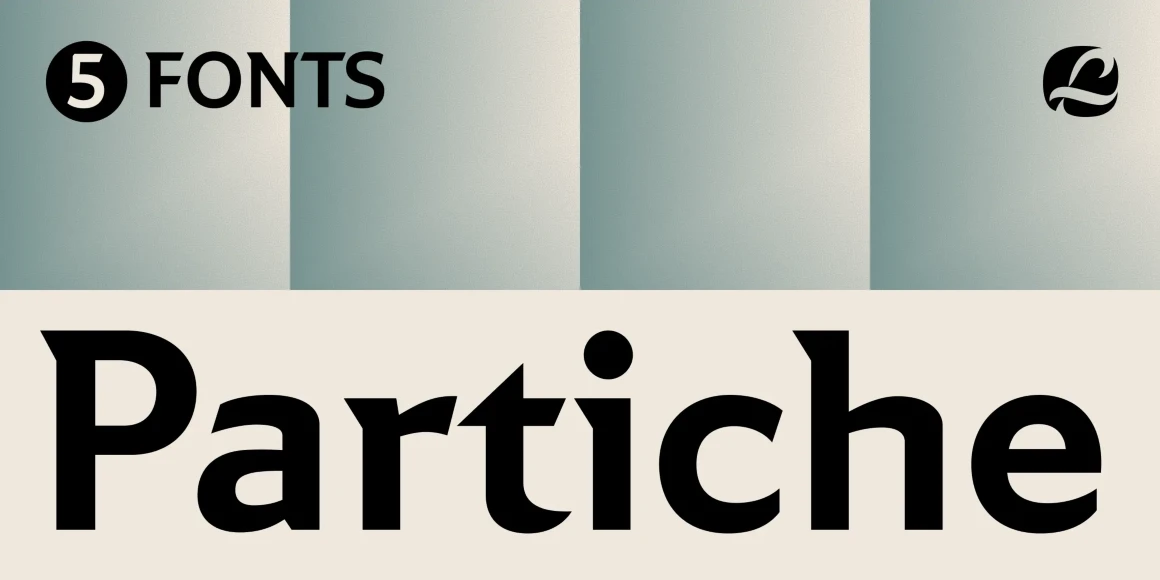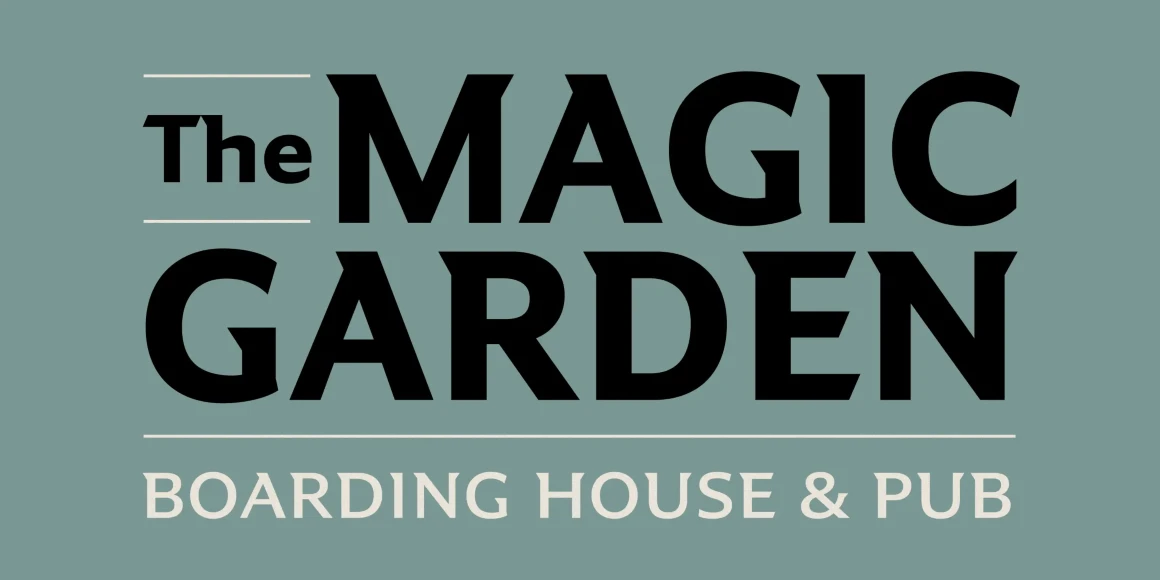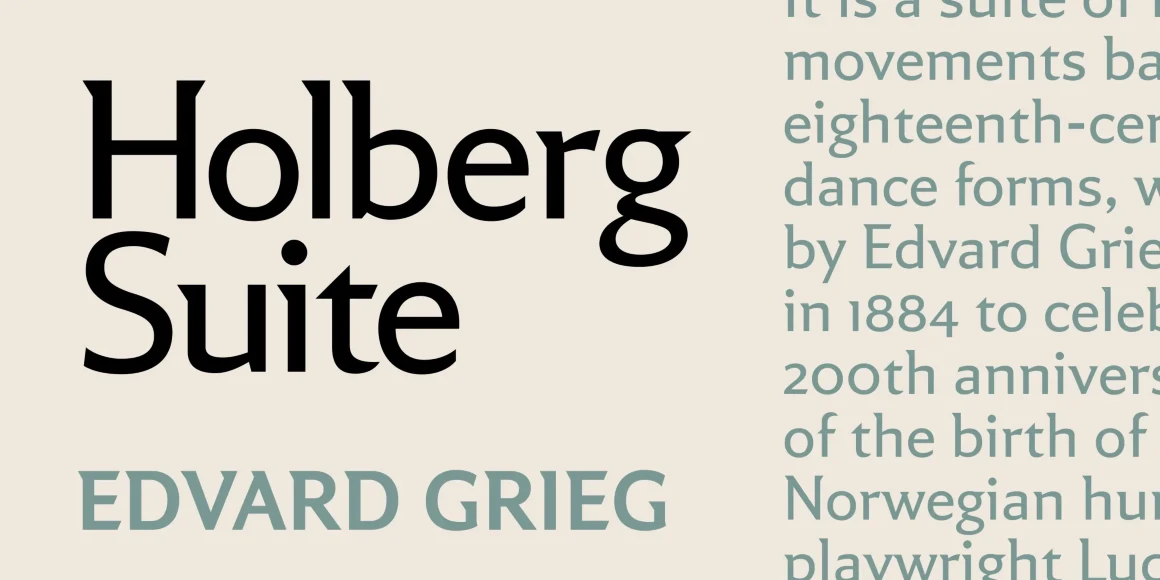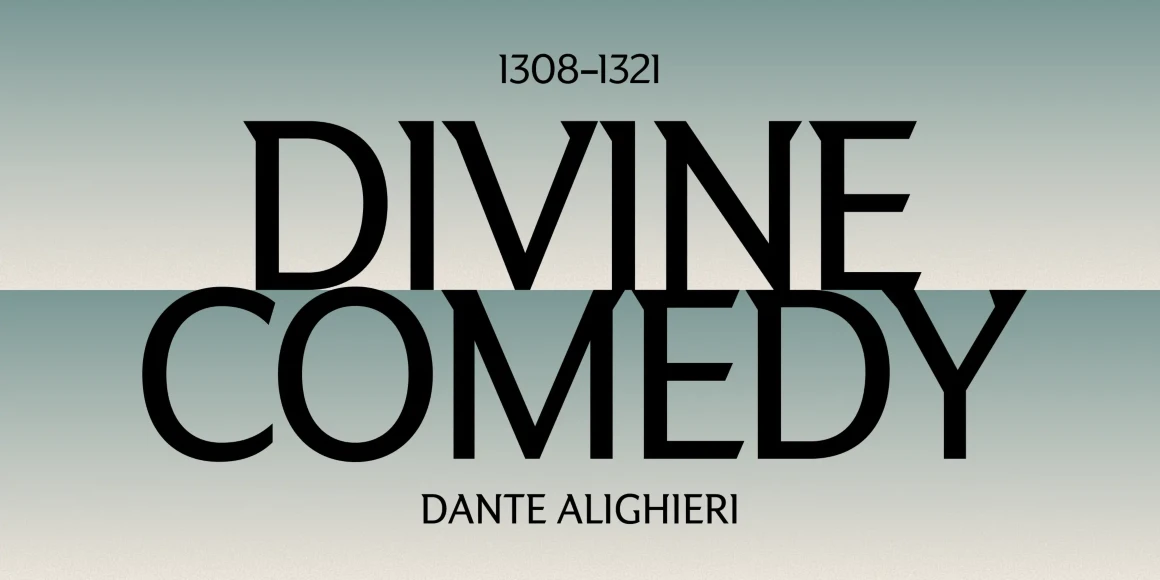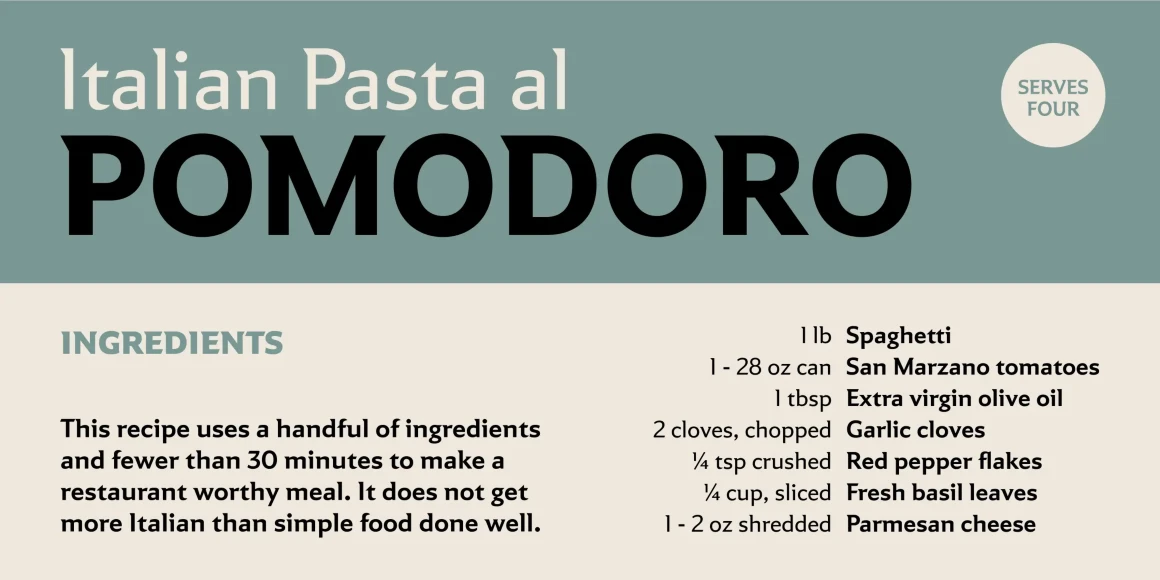
Partiche
Partiche is an expressive sans serif inspired by the playful graphic sensibility of Seymour Chwast, sharpened by Richard Lipton’s distinctly calligraphic eye. Wedge-shaped terminals, sculptural spurs, and quietly unexpected details animate a geometric framework that feels monolinear at a distance but rewards closer attention. Readable and typographically well-appointed with small caps and a purposeful set of alternates, Partiche carries enough character for book design, editorial spreads, and branding work alike.